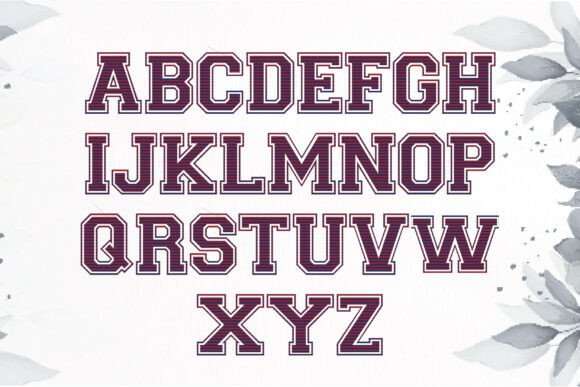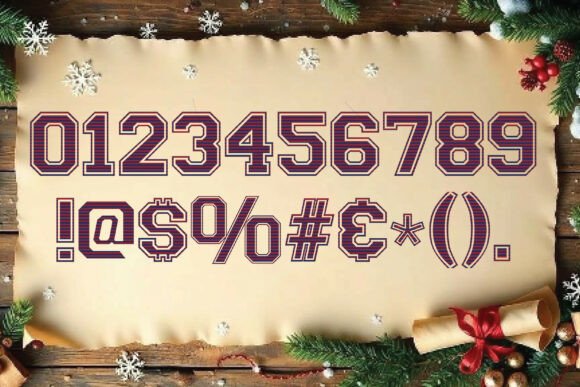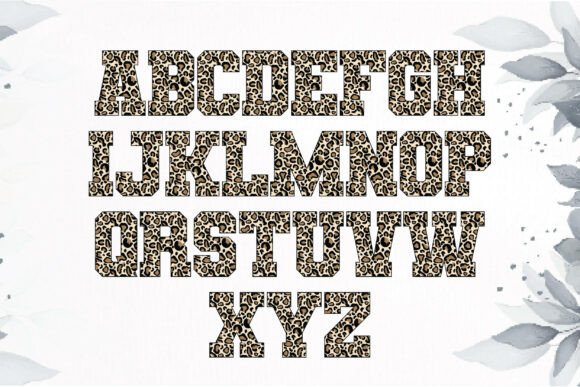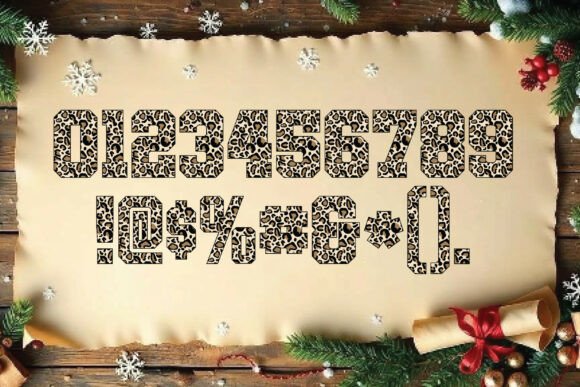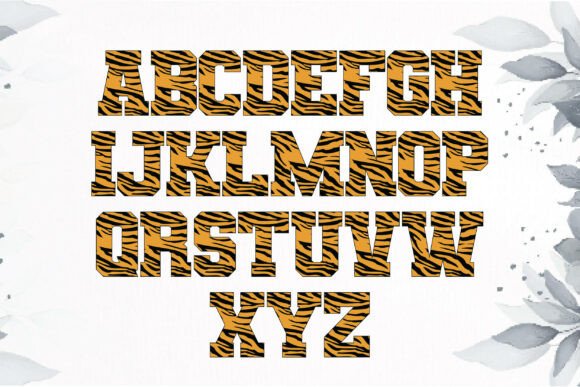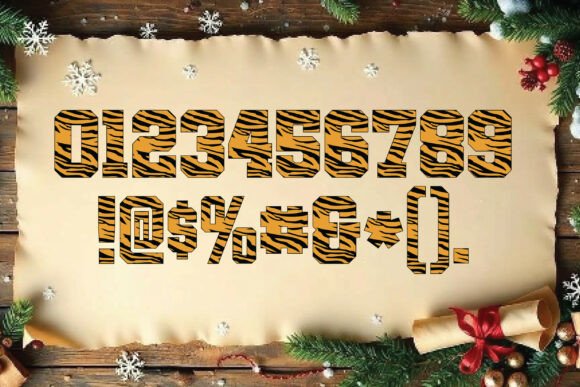
Unleash Your Inner Athlete with the Perfect Font
Do you remember the rush of excitement you felt as a kid designing your own fantasy football team logo or creating a championship banner for your favorite sports team? For many of us, the thrill of sports and creativity go hand-in-hand. Now, you can tap into that excitement with the American Sport Font, a bundle of four unique fonts that capture the energy and spirit of American sports.
This bundle is a treasure trove for designers, offering bold, energetic, and creative sports lettering styles that are perfect for a wide range of projects. Whether you’re designing team logos, jerseys, or banners, the American Sport Font is a valuable asset that will help you take your designs to the next level. With its versatility and customizability, this font is a must-have for anyone looking to add a touch of American sports flair to their designs.
American Sport Font Key Features
- Unique Characteristics: American Sport Font features a bold, modern design with clean lines and a sporty feel, making it perfect for sports-themed branding and design projects.
- Style Options: The font family includes various style options, including Regular, Bold, Italic, and Bold Italic, allowing for a range of creative possibilities.
- Language Support: American Sport Font supports a wide range of languages, including Latin, Greek, and Cyrillic scripts, making it a versatile choice for international design projects.
Designer Review: American Sport Font
As a designer, I’ve had the chance to work with the American Sport Font on a recent project. Here are my honest thoughts.
- The font’s bold and sporty feel is perfect for any athletic or action-packed brand.
- The font is highly legible, even at small font sizes, making it great for use in headings and titles.
- The font family includes a range of weights and styles, giving designers plenty of options for creating visually appealing typography.
- The font’s lack of fine-tuning in certain weights and styles can make it look a bit rough around the edges.
- The font’s boldness can sometimes make it difficult to read in certain contexts, such as body text.
- The font family could benefit from additional support for languages other than English.
Overall, I think the American Sport Font is a solid choice for designers looking to create bold, attention-grabbing typography. While it has some limitations, its strengths make it a great option for athletic or action-packed brands.
American Sport Font is ideal for:
- Sports branding and marketing materials.
- Event promotions and signage.
- Team logos and merchandise.